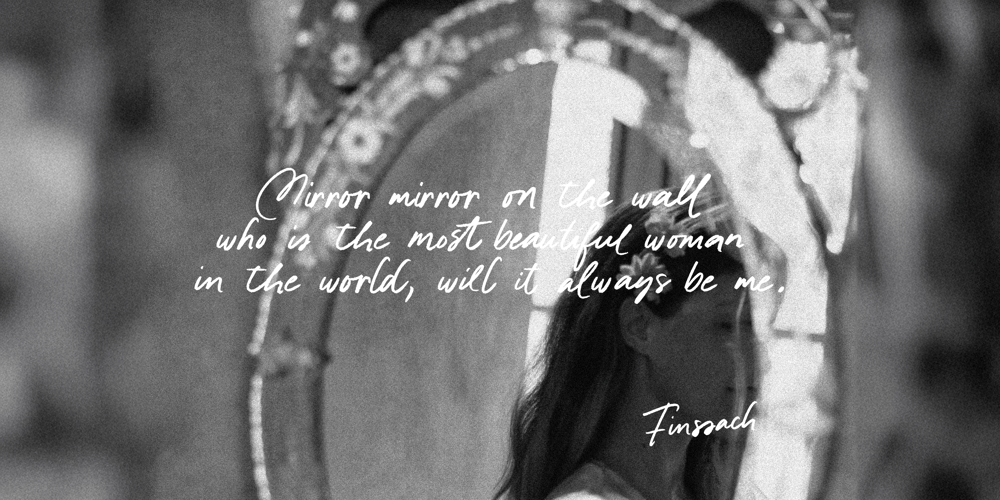
Wotteris Siottin
Wotteris Siottin font
Wotteris Siottin Font Family was designed by Fina Fadhila Rosida, Fina Fadhila and published by Pinakiaa Studios. Wotteris Siottin contains 1 styles and family package options. Wotteris Siottin is a handwriting font that has many connected letters to make it more beautiful and easy to read, because it is like most people’s handwriting. I made it simple but didn’t reduce the aesthetic value of the handwritting. This font is suitable for use as a product logo, letters, invitation, food menus, or post card for your loved ones, etcPlease don’t miss it, if you like it I hope you give a review in the comments column and also a star for Wotteris Siottin, feel free to ask me anything love!